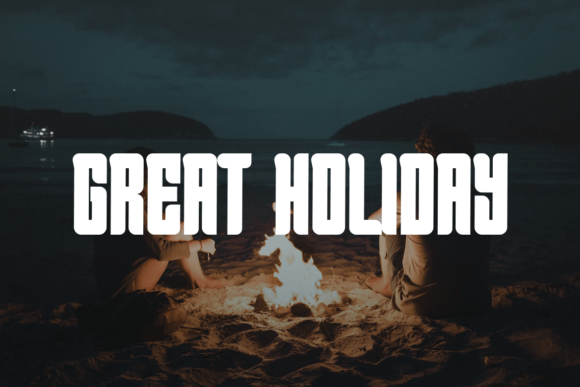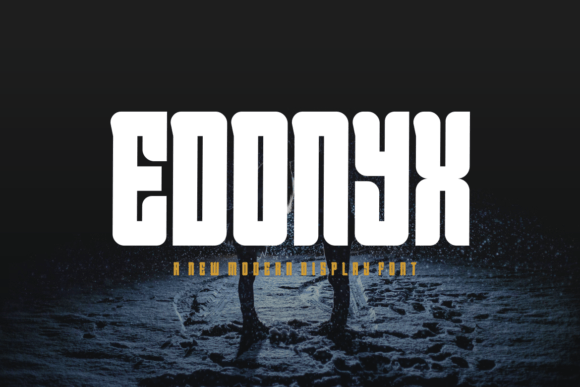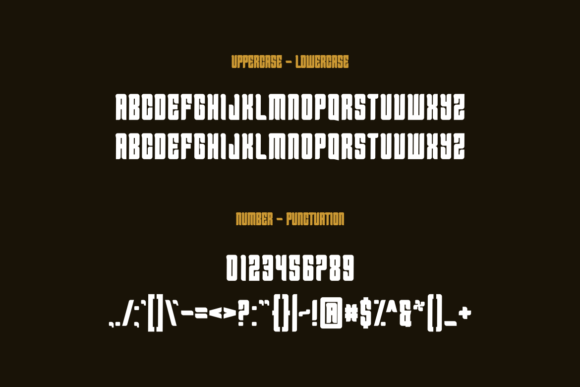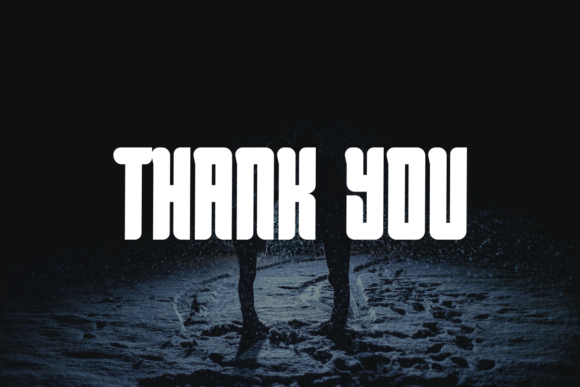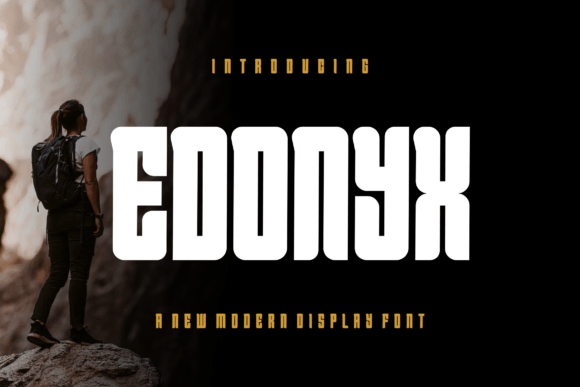
Introducing Edonyx Font: The Ultimate Modern Display Font for Designers and Crafters
In the world of typography, a font can make or break a design project. For designers and crafters looking for a bold and authentic display font, Edonyx Font is an exceptional choice. This modern font is specifically designed to elevate branding projects, making it perfect for logos, t-shirt printing, and a wide range of other applications. In this article, we’ll dive into the features and benefits of Edonyx Font, exploring why it’s an outstanding option for anyone looking to add a touch of sophistication and style to their designs.
What is Edonyx Font?
Edonyx Font is a bold and authentic display font that exudes modernity and elegance. Its unique design makes it suitable for a variety of branding projects, from logos and business cards to t-shirt printing and more. The font’s versatility allows it to shine in a wide range of contexts, making it an excellent addition to any designer’s or crafter’s toolkit.
Key Features of Edonyx Font
So, what sets Edonyx Font apart from other display fonts? Here are some of its key features:
• Bold and Authentic Design: Edonyx Font boasts a bold and authentic design that’s sure to grab attention. Its modern aesthetic makes it perfect for designs that require a touch of sophistication.
• Versatility: This font is incredibly versatile, making it suitable for a wide range of applications, from logos and branding materials to t-shirt printing and more.
• High-Quality Design: The font is designed with high-quality in mind, ensuring that it looks great in both digital and print formats.
Benefits of Using Edonyx Font
So, why should designers and crafters choose Edonyx Font for their projects? Here are some benefits of using this exceptional display font:
• Stand Out from the Crowd: Edonyx Font’s unique design ensures that your projects stand out from the crowd, grabbing attention and making a lasting impression.
• Professional Look and Feel: The font’s modern and sophisticated aesthetic gives your designs a professional look and feel, perfect for branding projects and more.
Is Edonyx Font easy to read?
Yes, Edonyx Font is designed to be highly legible, making it perfect for use in a variety of contexts.